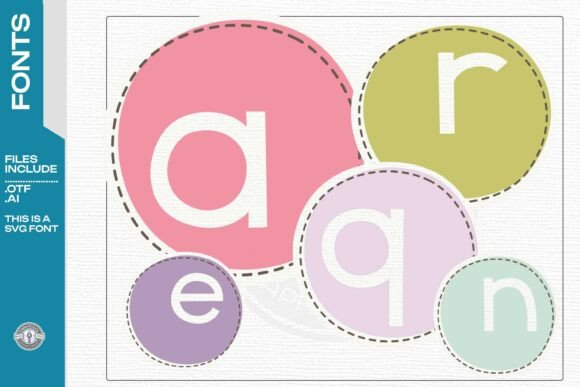
Crafty Circles Font: Elevate Your Designs with Whimsical Charm
Are you tired of using the same old fonts in your designs? Look no further! Introducing the Crafty Circles Font, a unique and innovative round SVG font that combines lowercase characters and numerals within vibrant color circles. This exceptional font is designed to bring a playful touch to your digital creations, seamlessly blending modern styling with a creative twist.
The Unique Allure of Crafty Circles Font
The Crafty Circles Font boasts a distinctive design that sets it apart from other fonts. Each character is delicately encased in a whimsical dotted border, adding a touch of playfulness to your designs. The font’s round SVG format allows for scalability without compromising on quality, making it perfect for various design applications, from digital projects to print materials.
Key Features of Crafty Circles Font
- Unique Round SVG Design: The Crafty Circles Font features a round SVG design that combines lowercase characters and numerals within vibrant color circles.
- Whimsical Dotted Border: Each character is encased in a delicate, whimsical dotted border, adding a playful touch to your designs.
- Exceptional Versatility: This innovative font seamlessly blends modern styling with a creative twist, making it perfect for a wide range of design applications.
- Scalable without Compromise: The font’s round SVG format allows for scalability without compromising on quality, ensuring that your designs look great in any size.
The Crafty Circles Font is an excellent choice for designers and crafters looking to add a touch of whimsy to their projects. Whether you’re working on a digital project, such as a website or social media graphics, or creating print materials, like brochures or posters, this font is sure to elevate your designs. Its unique charm and playful vibe make it perfect for projects that require a creative and modern approach.
Use Cases for Crafty Circles Font
- Digital Projects: Use the Crafty Circles Font to create engaging social media graphics, website headers, and other digital elements that require a playful touch.
- Print Materials: Add a creative twist to your print materials, such as brochures, posters, and flyers, with this unique font.
- Crafting and DIY Projects: The Crafty Circles Font is perfect for crafters and DIY enthusiasts who want to add a personal touch to their projects, such as handmade cards, gift tags, and scrapbooking.
Tips for Using Crafty Circles Font
- Experiment with Colors: Take advantage of the font’s vibrant color circles and experiment with different color combinations to create unique designs.
- Mix and Match Characters: Combine different characters and numerals to create interesting and playful designs.
- Use it as a Title Font: The Crafty Circles Font is perfect for use as a title font, adding a touch of whimsy and creativity to your headings and titles.
The Crafty Circles Font is an exceptional addition to any designer’s or crafter’s toolkit. Its unique round SVG design, whimsical dotted border, and exceptional versatility make it perfect for a wide range of design applications. Whether you’re working on digital projects or print materials, this innovative font is sure to bring your creations to life with its captivating charm. So why settle for ordinary fonts when you can add a touch of whimsy to your designs with the Crafty Circles Font?